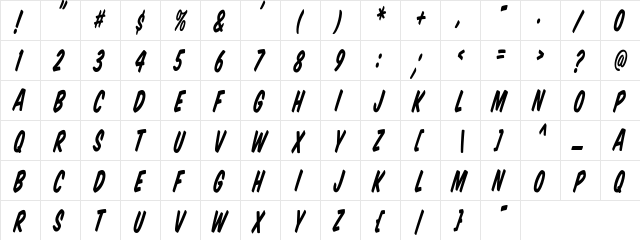
VTCSuperMarketSaleTallTilt Italic
Design Context for VTCSuperMarketSaleTallTilt Typeface
VTCSuperMarketSaleTallTilt is a composed and adaptable typeface that performs quietly and consistently across a wide range of design contexts. Its italic angle brings a sense of urgency and motion to the letterforms.
Pro Tip: Try VTCSuperMarketSaleTallTilt for annotation and caption copy alongside an upright companion — the contrast in angle creates a dynamic but ordered typographic system.